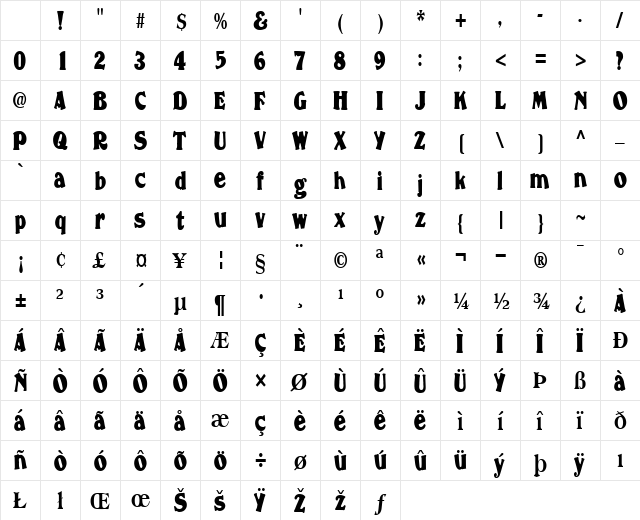
WildWorldNew62 Regular
Design Context for WildWorldNew62
WildWorldNew62 is a composed and adaptable typeface that performs quietly and consistently across a wide range of design contexts.